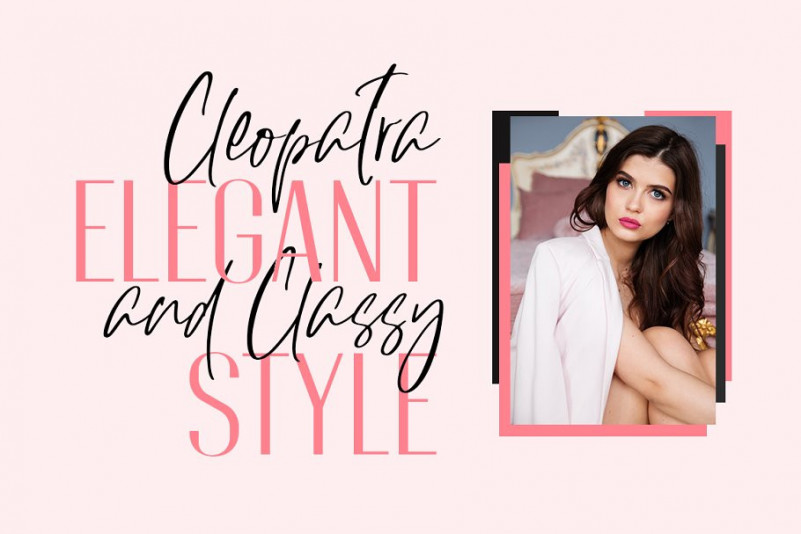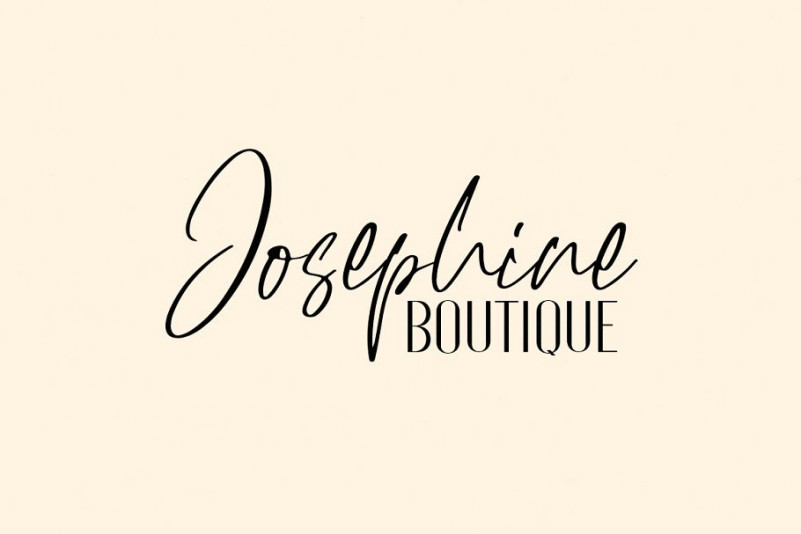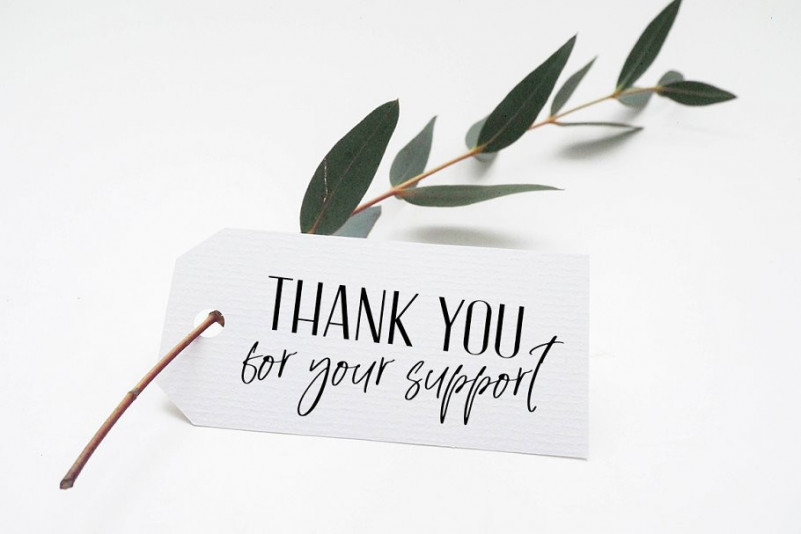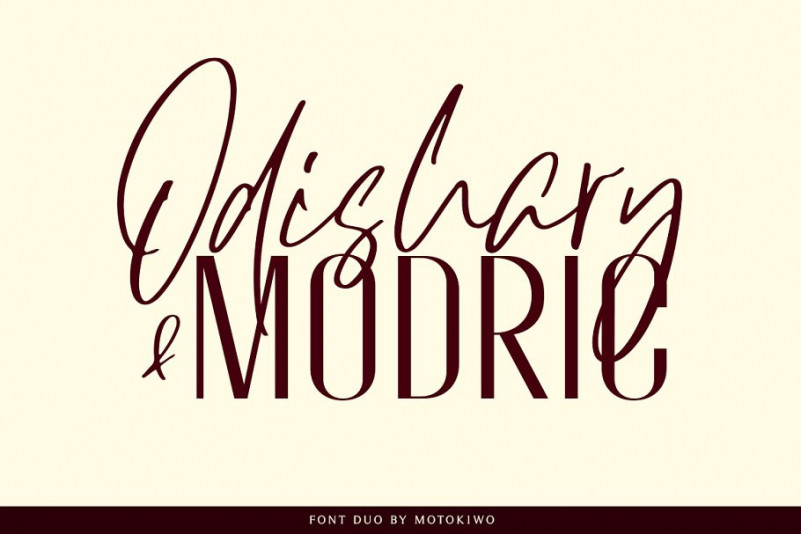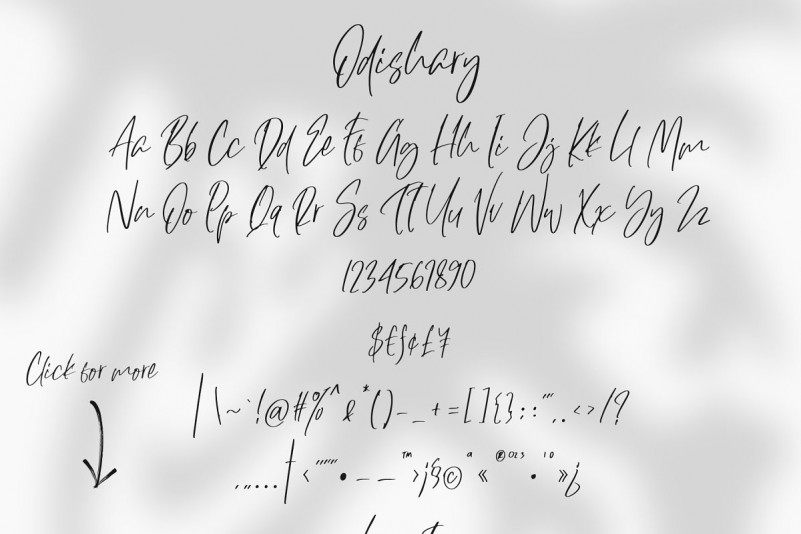
Odishary Script – Free Demo
This is a handwriting font with unique, casual and beautiful style. Each letter was made with love so it can work well with other character. It’s a stylish Signature font with contemporary and sophisticated accents. Introducing Odishary Font. It is designed and shared by Motokiwo. It’s casual and classy handwritten script font with ligature, also includes multilingual characters. It is perfect for logo/branding projects, large header text and product packaging.